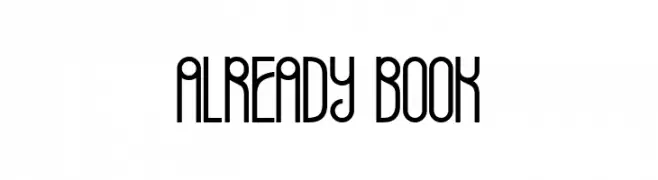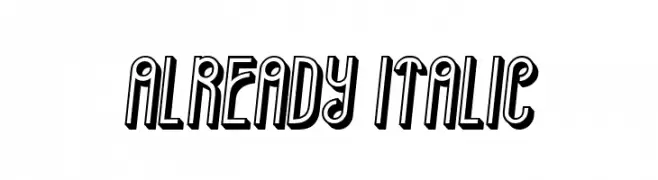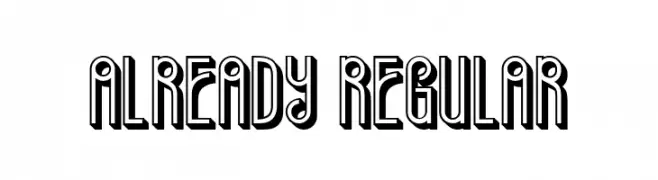
A modern, elongated font with narrow characters and a sleek design.
A modern, narrow, and slightly italic font with a retro touch.
A bold, decorative font with a 3D shadow effect, perfect for eye-catching designs.
A bold, three-dimensional font with a modern geometric style.